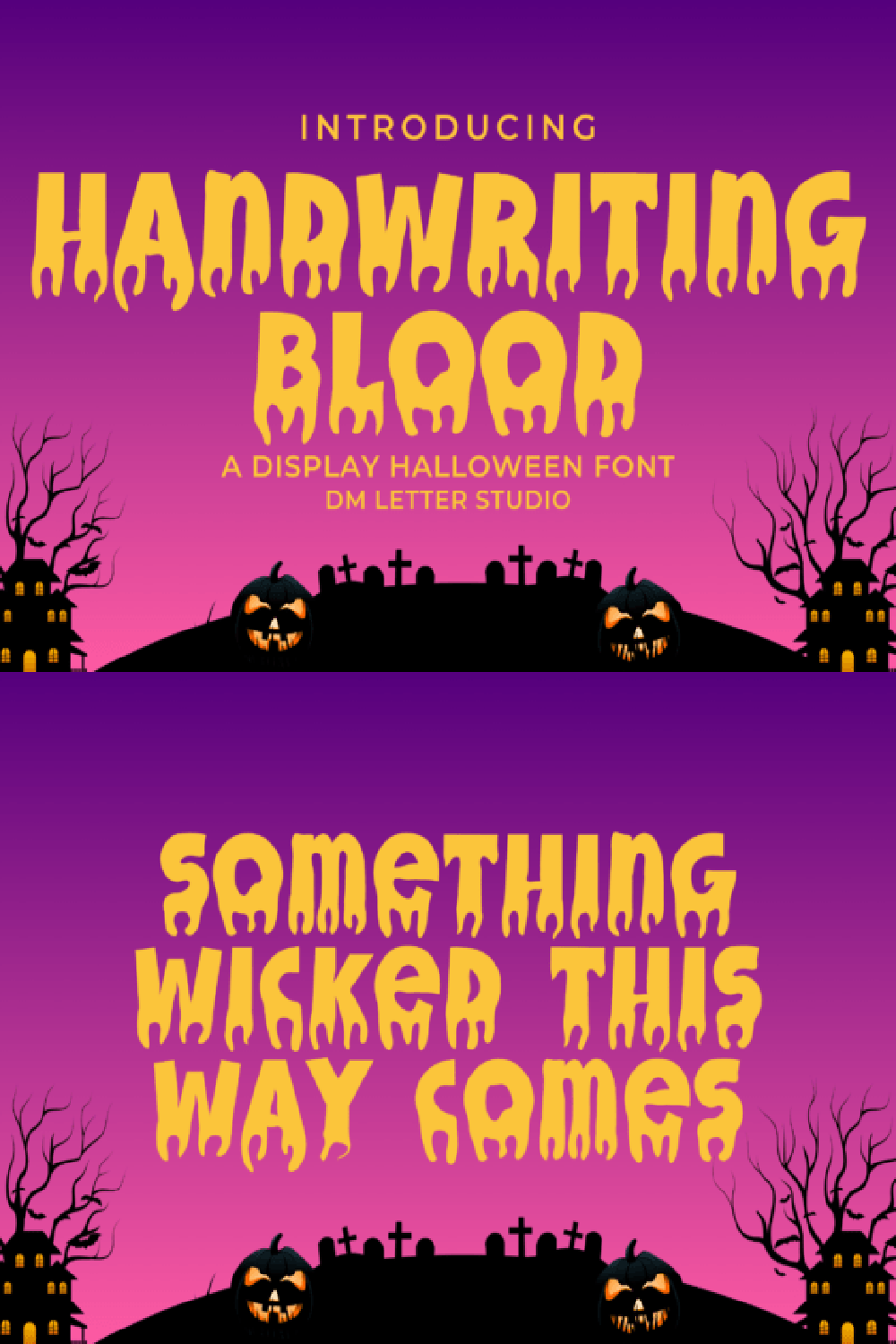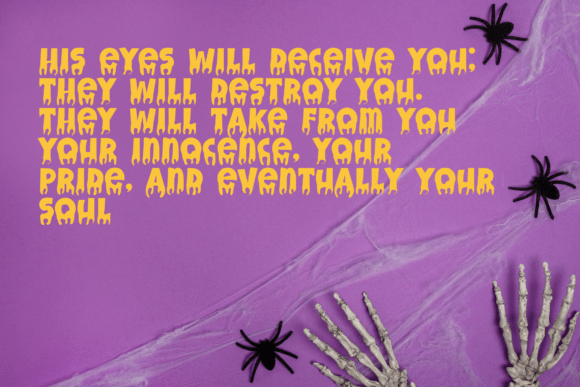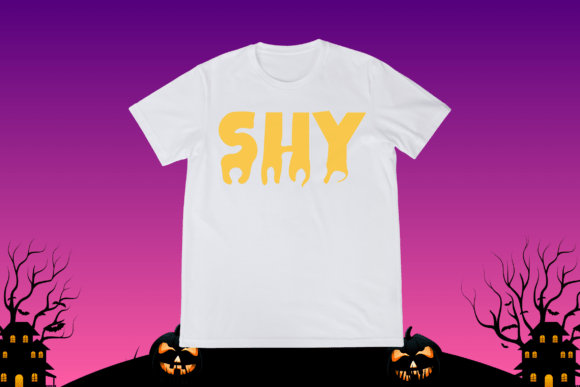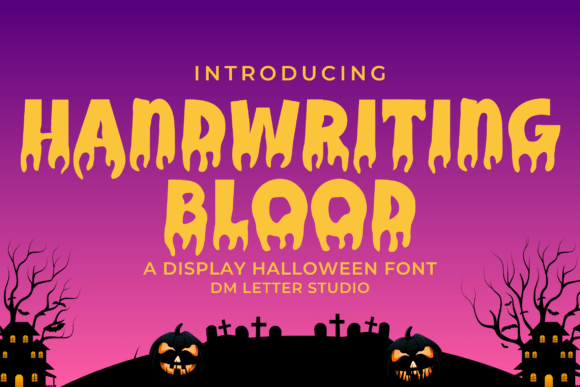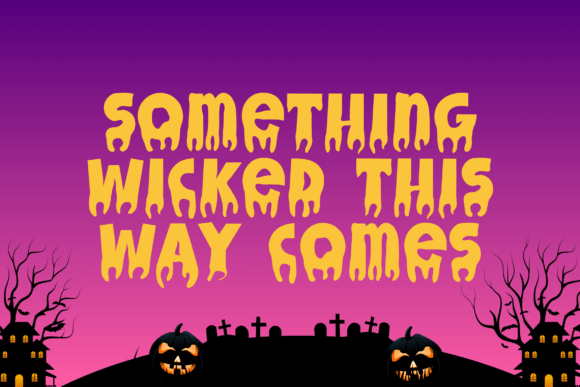
Handwriting Blood Font
About the Handwriting Blood Font
Make a bold statement with Handwriting Blood Font, a powerful and memorable font. Introducing Handwriting Blood – an unsettling handwritten font carefully crafted with elements of the macabre. Emulating horror-inspired themes, its visceral ink strokes invoke a raw sense of dread, making it the cornerstone for all things Halloween-related or menacing. Its jagged alphabetistic structures excel when used in horror film placards, suspenseful novel artwork, or any crime-related creative endeavor that requires an undercurrent of fright. The organic rhythm of its notes enhances its genuine, ominous atmosphere – evoking imagery of a hastily-scrawled, cryptic message.